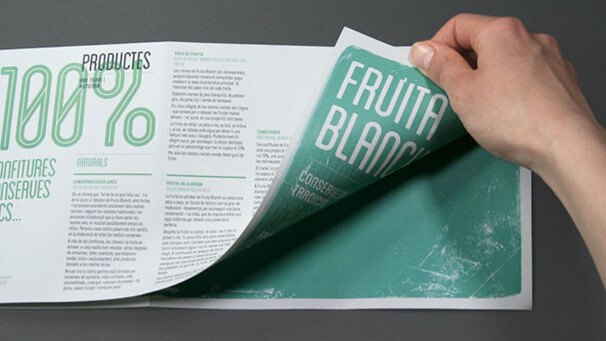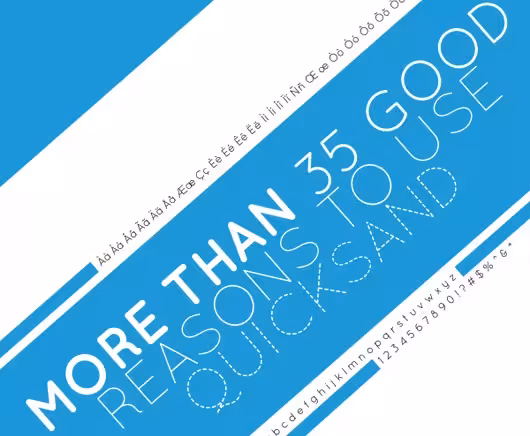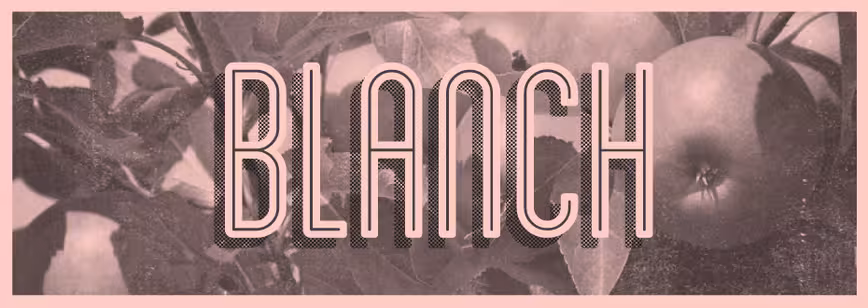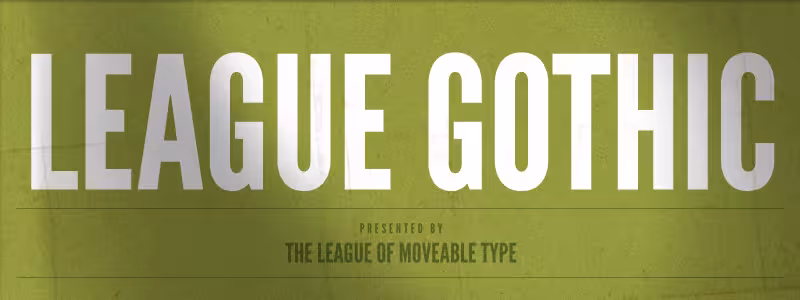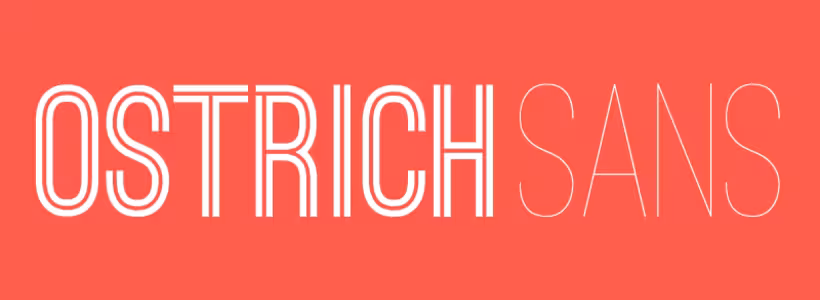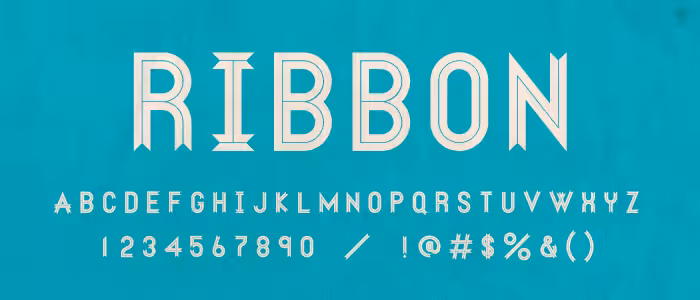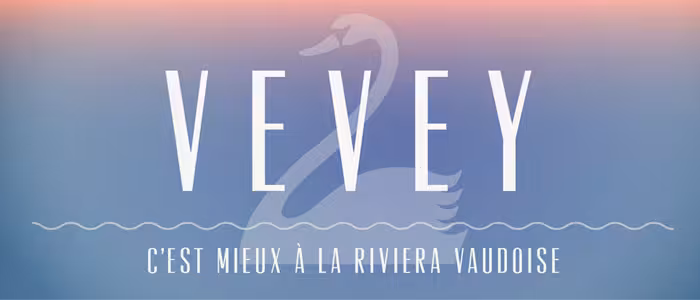
9 Awesome free display typefaces you can download right now
The art of type design is for a special breed of designer. The insane attention to detail required to create typefaces is enough to drive the average person crazy, as every subtle curve and rule matters. One tiny mistake is the difference between a masterpiece and junk.
If you’re a novice to the world of typography, you’ll most likely be familiar with text type, or fonts created to be legible and readable at small sizes. Adobe Caslon, for example, is a great text typeface for large amounts of text (like books).
Display typefaces, on the other hand, are less about legibility (though it is still important), and more about personality, character and distinctiveness. They’re best for logos, signage and posters, all at larger sizes (around 30 points+). Here’s a list of 9 inspiring, free display typefaces for you to use in your projects:
Blanch
Blanch is a display typeface that was originally created for Fruita Blanch (makers of fine jams). According to the designer, the typeface family came about from a search for a traditional font with a contemporary feel.
Ribbon
Ribbon is a geometric, decorative face by Dan Gneiding, and is downloadable through the Lost Type Co-op: a pay-what-you-wish type foundry.
Vevey
Vevey is a dreamy, refined sans serif inspired by a vintage travel poster found in the Swiss Riviera. There’s something peculiar about the balance of thick and thin strokes that creates a lot of visual interest.
Folk
Folk, which is in the process of becoming a complete font family via Kickstarter, is a goofy and casual display font with tons of personality.
League Gothic
League Gothic is a remake of an old classic that recently became part of the public domain. It was originally designed by Morris Fuller Benton for the American Type Founders Company in 1903.
Ostrich Sans
Ostrich Sans is a gorgeous modern sans-serif with a very long neck and a whole slew of styles & weights.
Oh Mai Mai
Oh Mai Mai, by Jorge Artola, is a strange, ink blot-like typeface with unexpected balance and legibility.
Quicksand
Quicksand is a sans-serif typeface, influenced by the geometric-style sans serif faces that were popular during the 1920s and 30s.
Color Lines
Color Lines is an experimental font that, because of its complexity, cannot be made into an actual font file. It’s available as a vector for use in Photoshop, Illustrator, etc.